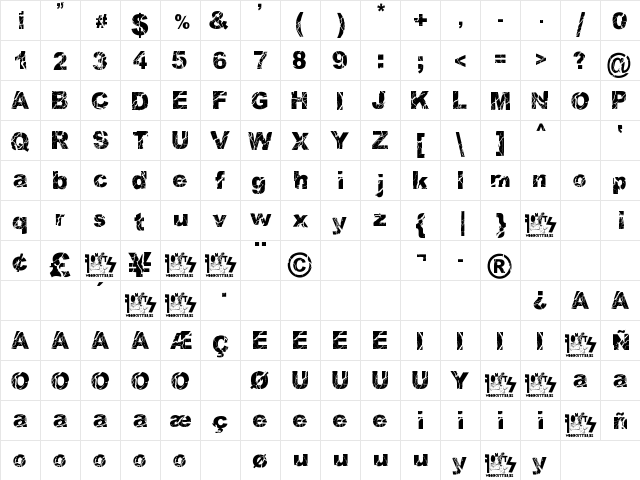
WOODCUTTER STORM Regular
Design Context for WOODCUTTER STORM Typeface
WOODCUTTER STORM echoes the hand-painted signage and woodblock typography of the American frontier, with a warm, rugged personality.
A natural fit for craft spirits, ranch branding, rodeo events, and Americana-inspired design work.
Font Pairing: Combine WOODCUTTER STORM with a simple slab or neutral sans — period-accurate companions reinforce the vintage feel without competing for attention.
Pro Tip: Use WOODCUTTER STORM for short, impactful bursts of text — it shines in poster headlines and product names rather than extended copy.